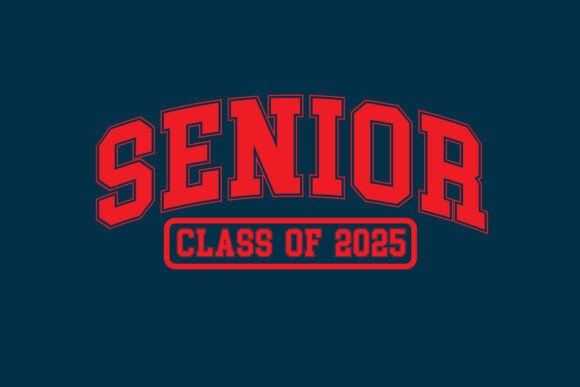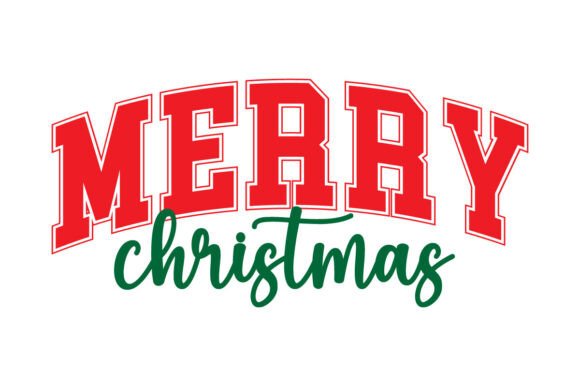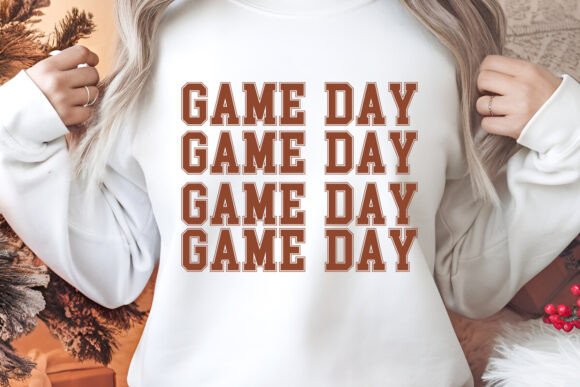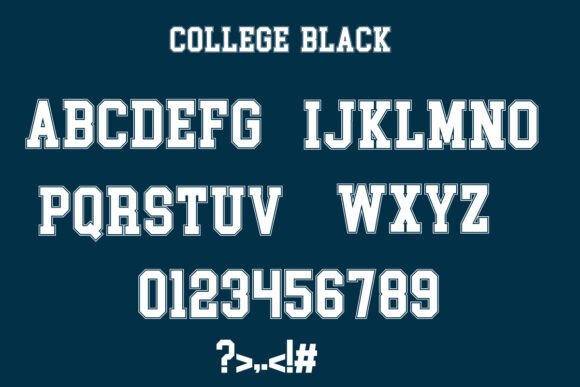
Introduction to College Black Font
College Black Design is a modern and bold display font.
Suitable for sports design, team, jersey, league, movie, documenter, film, logo, poster, game, book cover, headlines, title, and many more projects .
Key Features of College Black Font